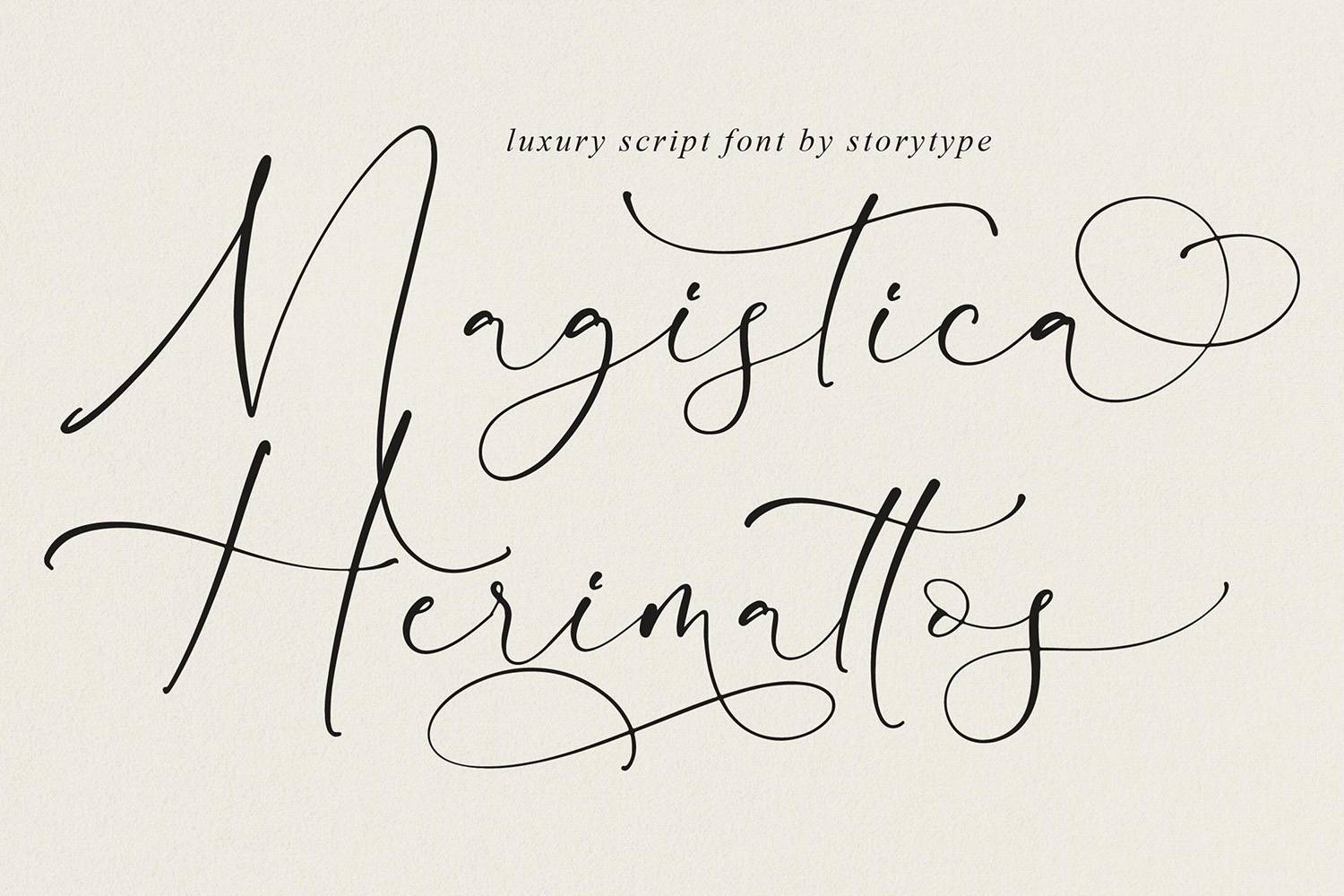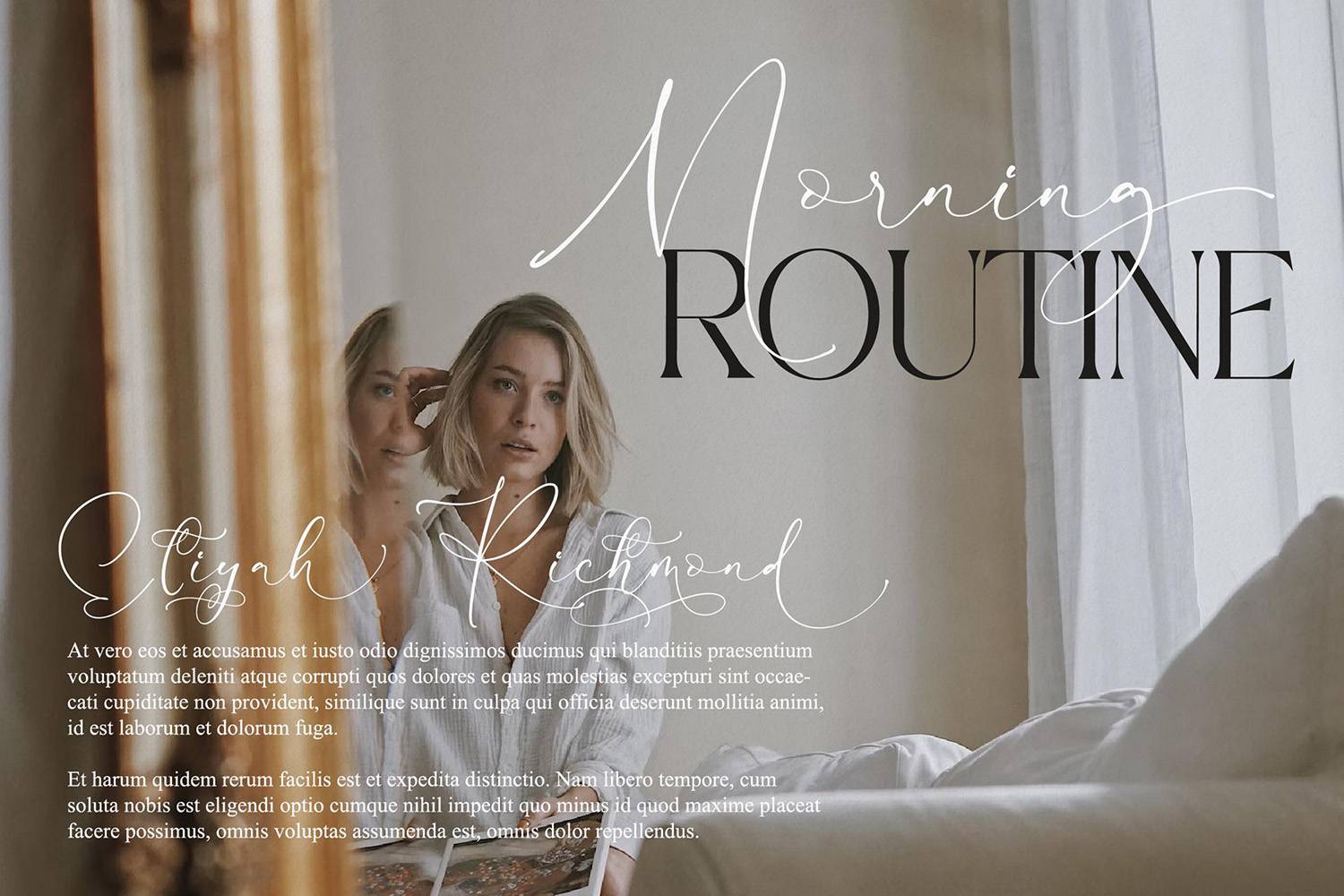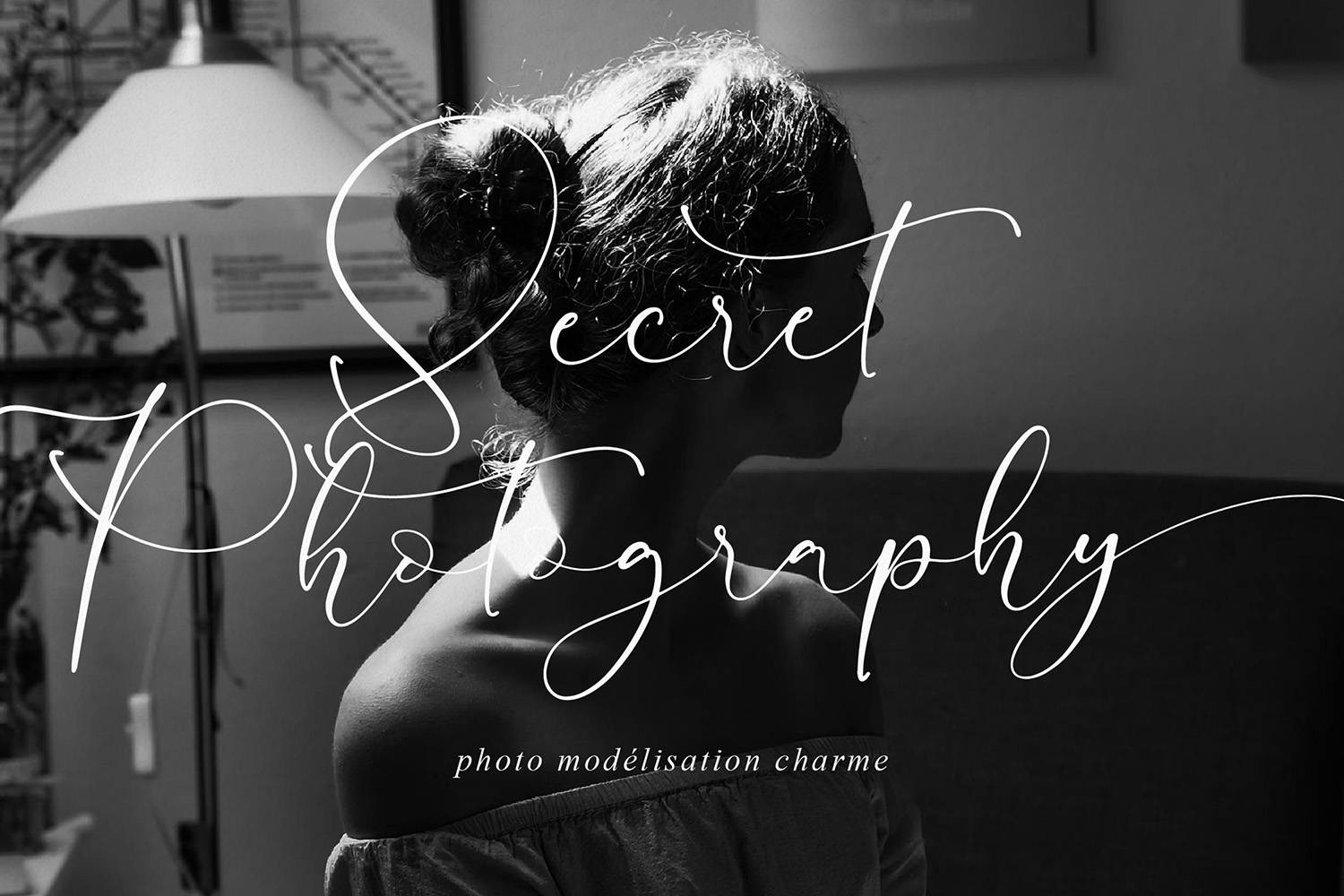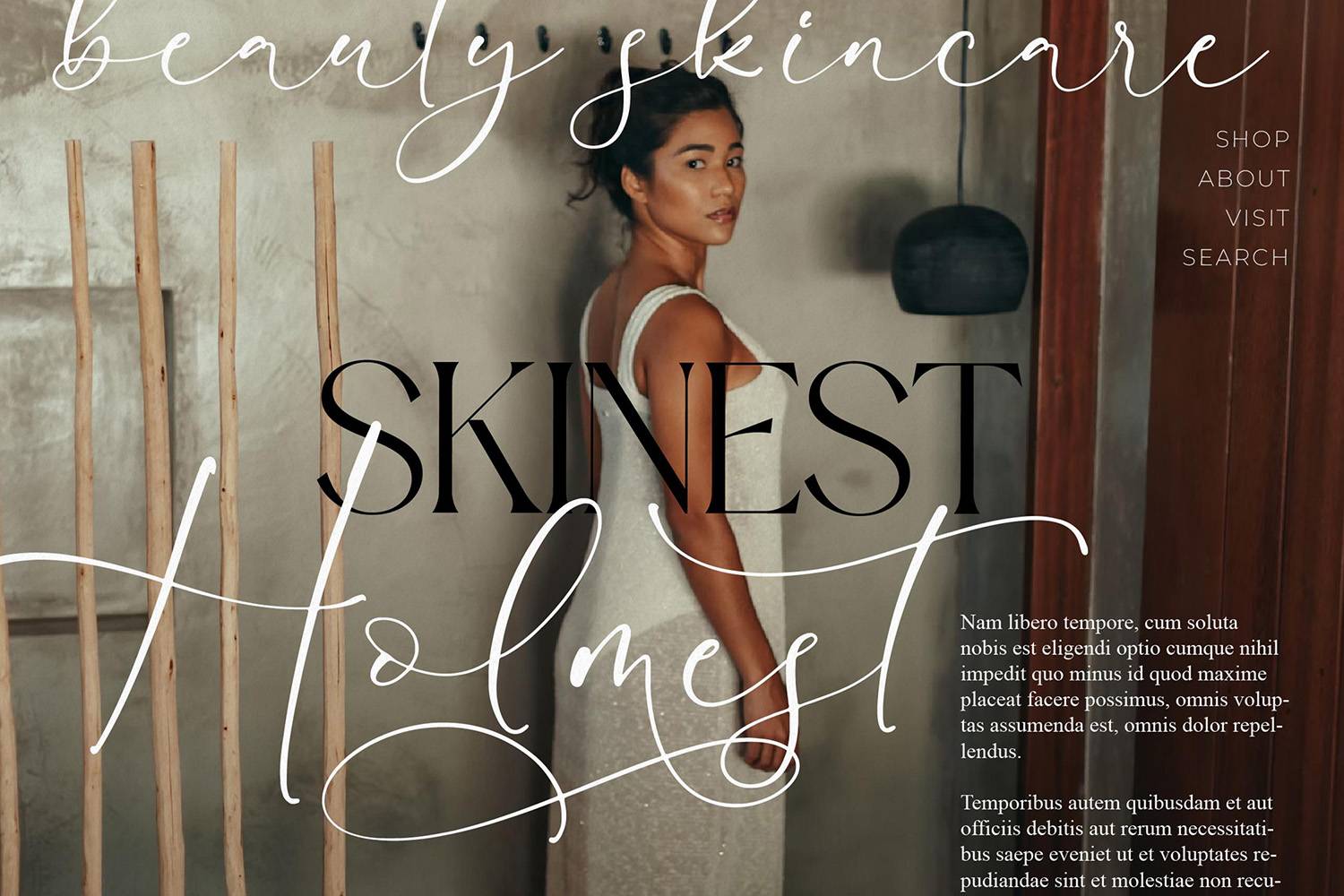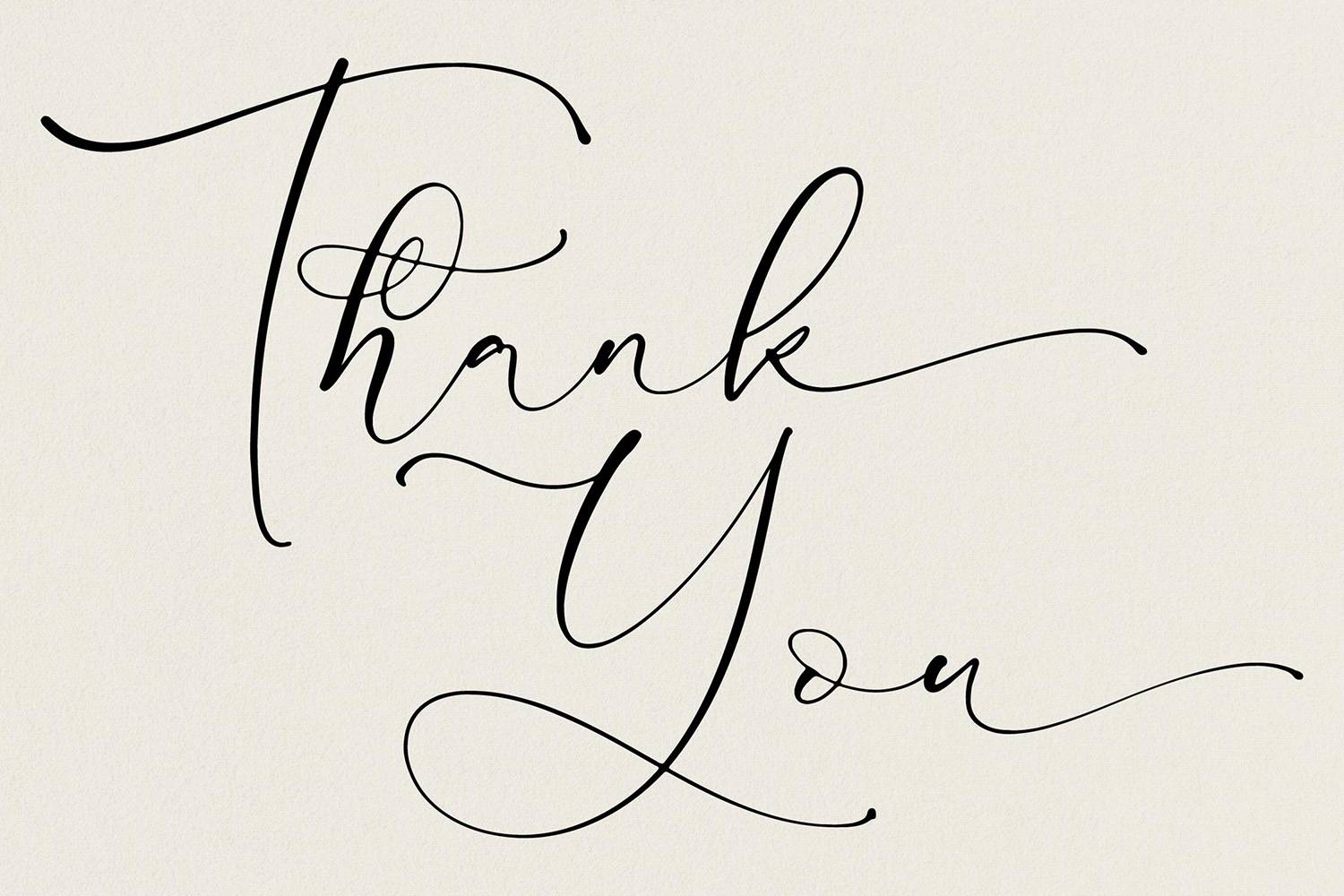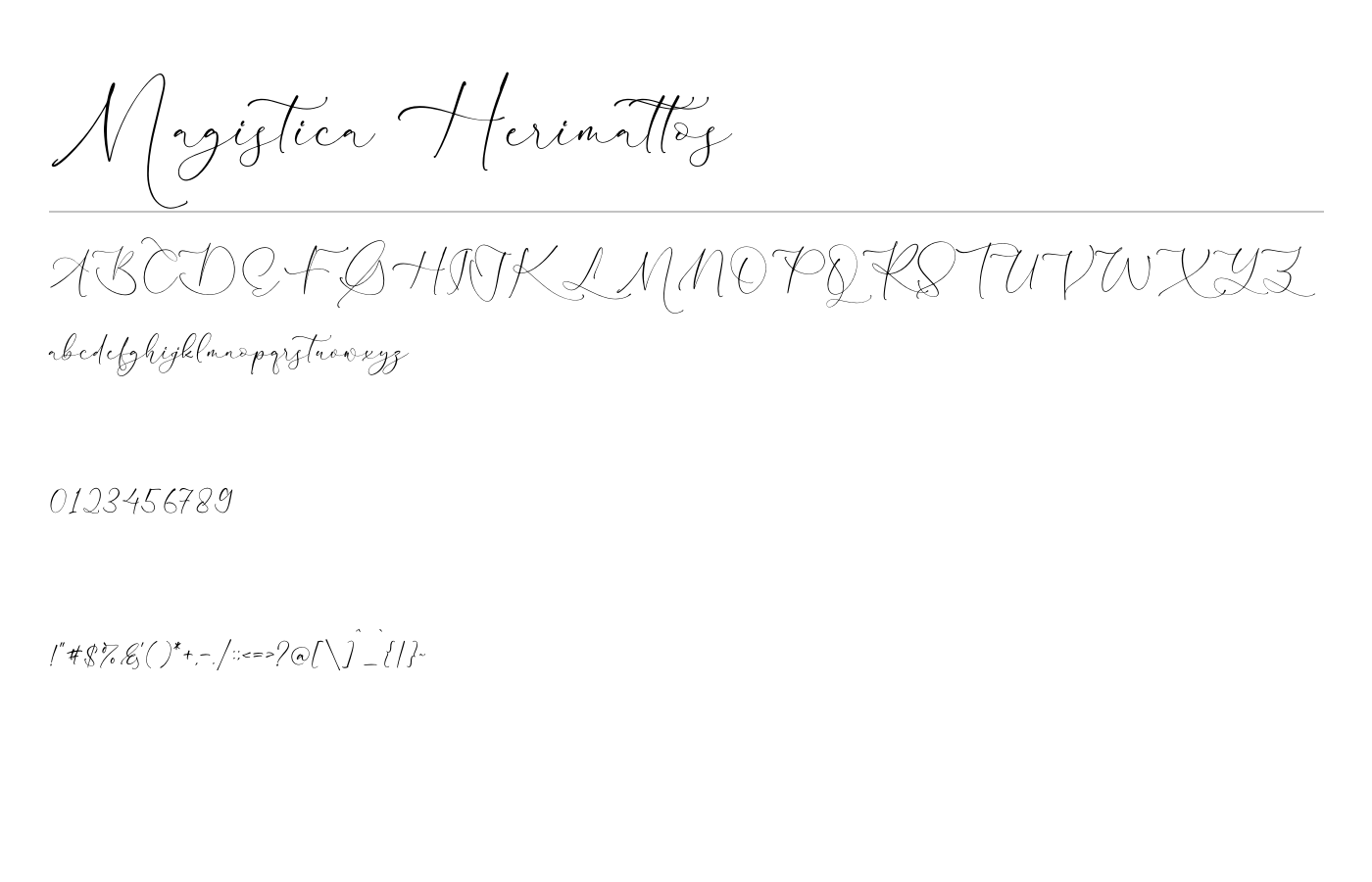
Magistica Herimattos is a delicate, elegant script font featuring fine, flowing strokes that mimic natural handwriting with graceful swirls and loops. Its light weight and high contrast give it a sophisticated and airy feel, making it perfect for luxury branding, wedding invitations, and feminine designs where a touch of refinement and personal charm is desired. This font’s intricate letterforms work best in large sizes for headlines or decorative text, adding an artistic and romantic flair.
Magistica Herimattos Font
About Magistica Herimattos Font